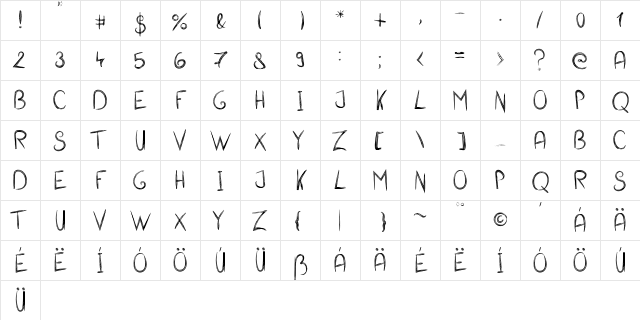
Antler Regular
Foundry: Tschak
Designer: Tschak
Design Context for Antler
Antler is a composed and adaptable typeface that performs quietly and consistently across a wide range of design contexts.
Pro Tip: Use Antler in both headline and body roles to test its range before committing to a single application.
Who designed the Antler Regular font?